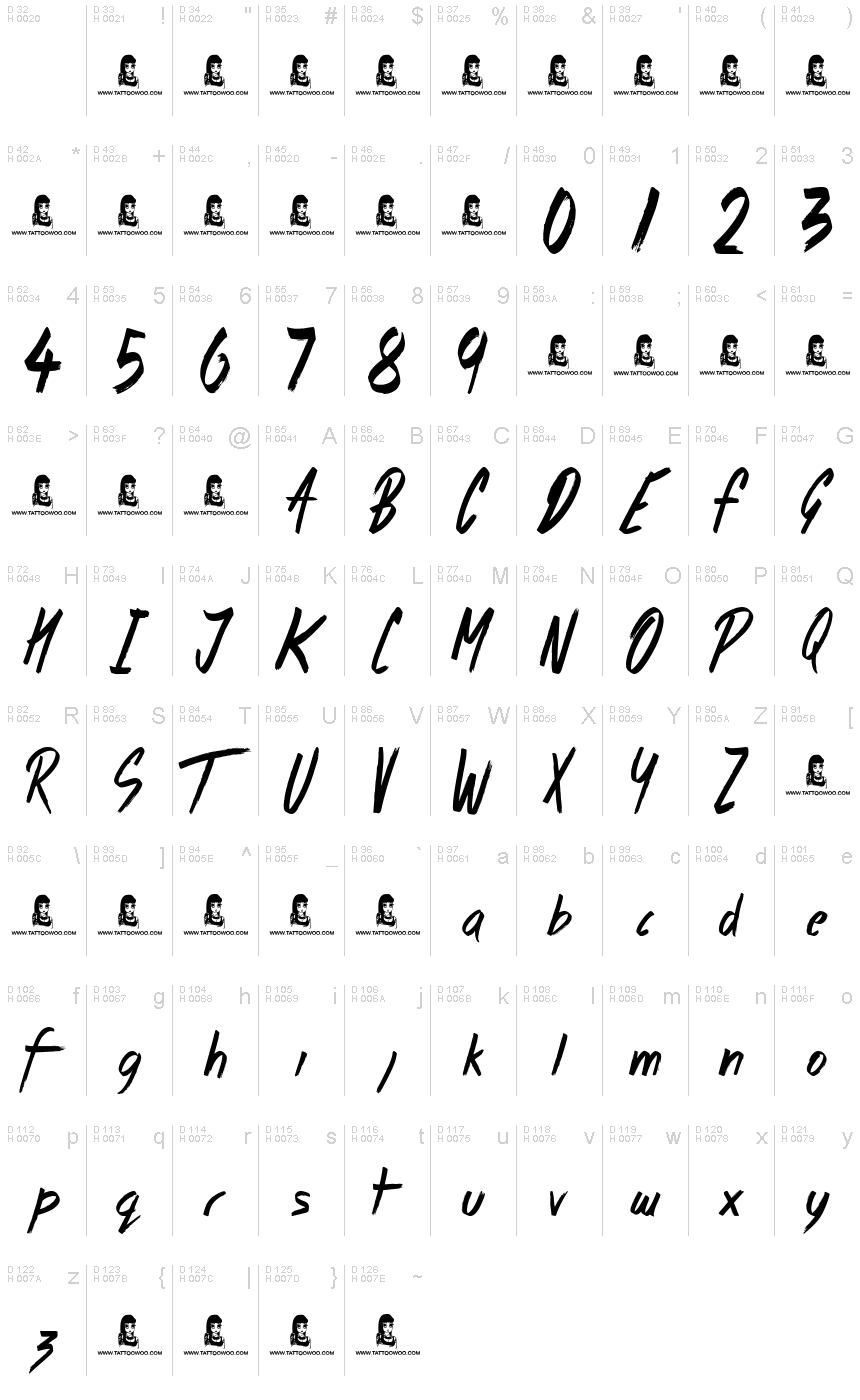
Morning Star
Morning Star is a captivating, brush-style font that exudes a sense of energy and dynamism. Crafted by designer JSH, this condensed typeface boasts a striking, handwritten aesthetic that lends an organic, artisanal feel to any design.
The bold, sweeping strokes and fluid lines create a visually striking contrast, making Morning Star an excellent choice for headlines, branding, and creative projects that demand a bold, impactful typographic presence.
Its versatility allows it to seamlessly integrate into a wide range of design applications, from editorial layouts to event posters, conveying a distinctive, contemporary flair.